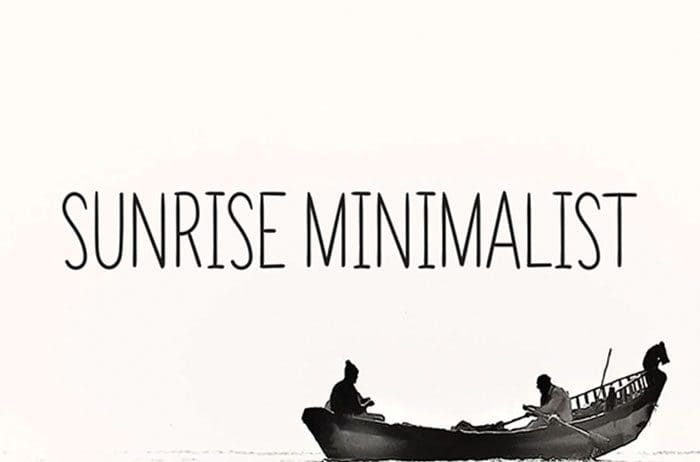
Sunrise Minimalist Serif Font
Sunrise Minimalist is a cute and casual serif font with an incredibly friendly feel. Whether you’re looking for fonts for Instagram or calligraphy scripts for DIY projects, Sunrise Minimalist will turn any creative idea into a true piece of art! Designed this font by Andika Studio. You can also search more free Serif Fonts.